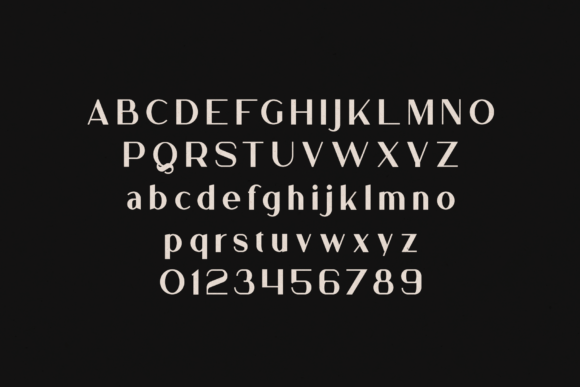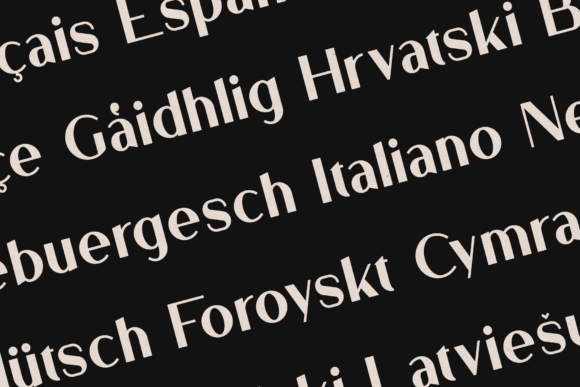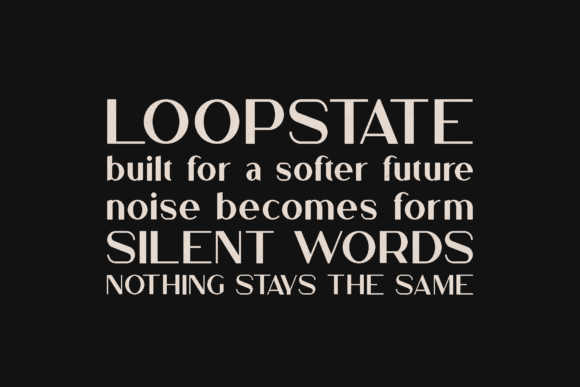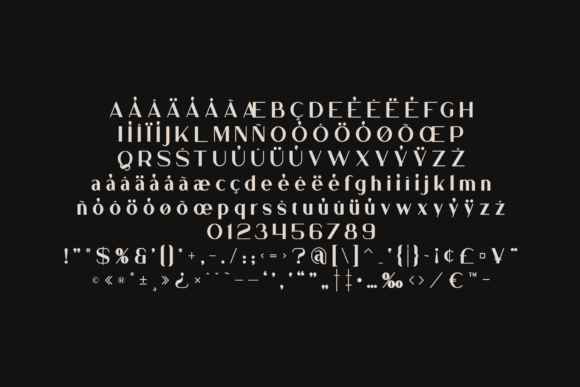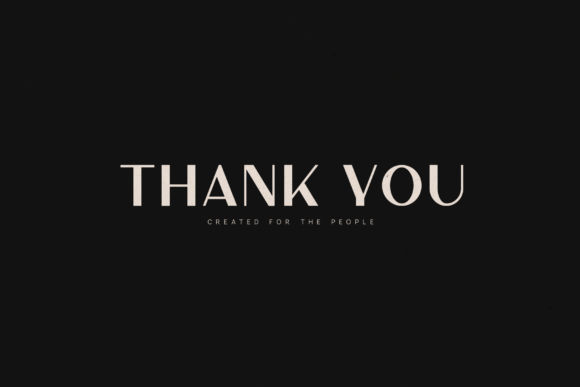
The Bungalow Font: A Timeless Serif for Elegant Design
I’ll never forget the design project that led me to discover the Bungalow font. I was working on a luxury lifestyle magazine, struggling to find the perfect font for the headlines. My client wanted something elegant, sophisticated, and timeless, but also modern and attention-grabbing. After hours of searching, I stumbled upon Bungalow Headline, and it was love at first sight! ✨
- ✨ Elegant and refined: Bungalow Headline has a classic serif structure with gentle curves and balanced proportions, making it perfect for elegant headlines and sophisticated branding.
- ✅ Strong readability: The font delivers a warm, timeless feel with a contemporary edge, making it ideal for magazines, fashion branding, lifestyle projects, logos, posters, book covers, and premium marketing materials.
- 💡 Expressive character: Bungalow Headline has a subtle contrast and smooth rhythm, making it especially effective for headline typography and short text compositions.
While Bungalow Headline is an amazing font, there are a few things to keep in mind: 🤔
- ⚠️ Limited use in body text: Due to its elegant and refined nature, Bungalow Headline might not be the best choice for body text or long paragraphs.
- ⚠️ Requires attention to spacing: As with any serif font, it’s essential to pay attention to spacing and kerning to ensure optimal readability.
- Experiment with OpenType features, such as Stylistic Alternates and Ligatures, to add an extra layer of elegance to your design.
The Backstory of Bungalow Font
Bungalow Headline was designed with the goal of creating a timeless serif font that blends classic elegance with modern sophistication. The designer aimed to create a font that would be perfect for elegant headlines, editorial layouts, and sophisticated branding. 💡
| Font Name | Bungalow Font |
| Author | vladfedotovv |
Q: What is Bungalow Headline?
A: Bungalow Headline is a soft modern serif font designed for elegant headlines, editorial layouts, and sophisticated branding.
Q: What is Bungalow Headline ideal for?
A: Bungalow Headline is ideal for magazines, fashion branding, lifestyle projects, logos, posters, book covers, and premium marketing materials.
Q: Can I use Bungalow Headline for body text?
A: While Bungalow Headline is an amazing font, it might not be the best choice for body text or long paragraphs due to its elegant and refined nature.
Q: Does Bungalow Headline support OpenType features?
A: Yes, Bungalow Headline supports OpenType features, such as Stylistic Alternates and Ligatures, which can add an extra layer of elegance to your design.